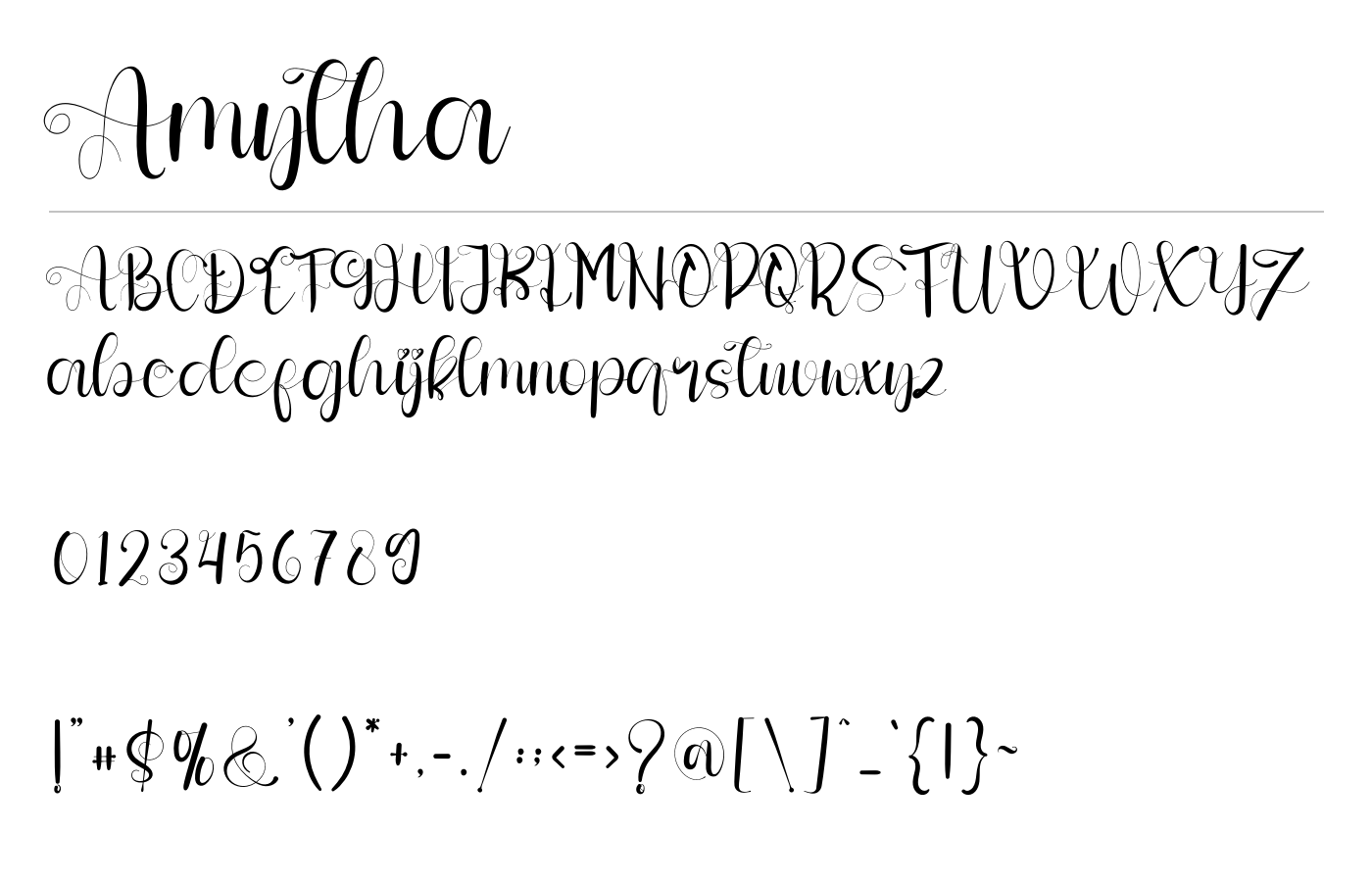
Amytha is an elegant script font with a delicate, calligraphic style featuring graceful swashes and flourishes that lend it a romantic and refined personality. Its fine weight and high contrast strokes make it ideal for sophisticated branding, wedding invitations, and decorative headlines where a touch of luxury and femininity is desired. This font works best in large sizes to showcase its intricate details and flowing letterforms, adding charm and elegance to any design.
Amytha Font